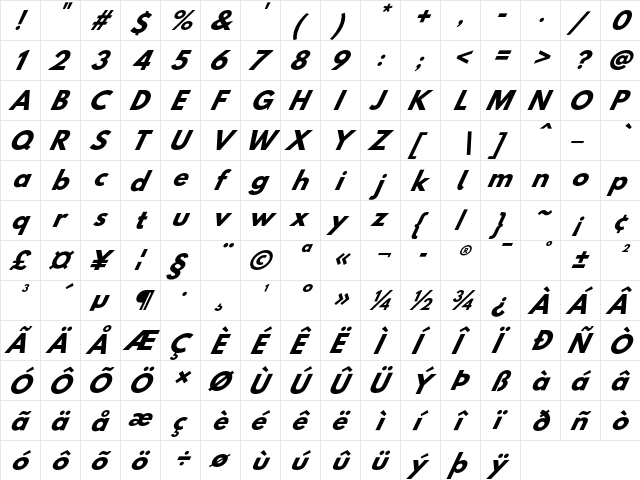
Hussar BdOblFive Font Preview
Hussar BdOblFive
Hussar BdOblFive Font Details
| Style | BdOblFive |
| Foundry | Cannot Into Space Fonts |
Design Context for Hussar Typeface
Hussar is a composed and adaptable typeface that performs quietly and consistently across a wide range of design contexts.